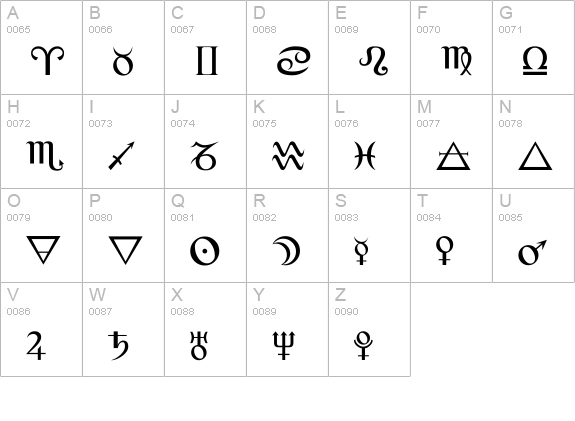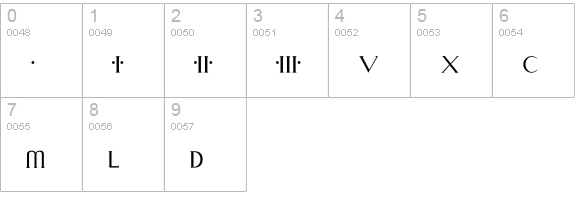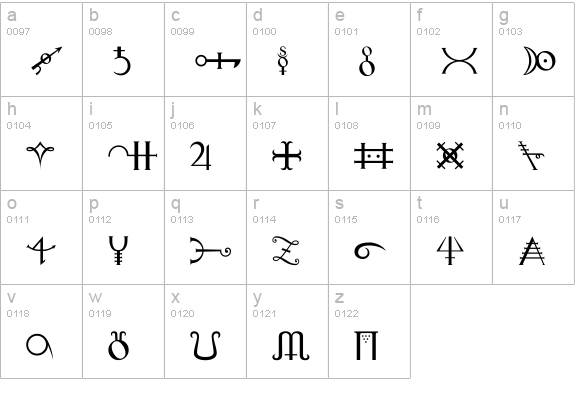
Alchemy Font Details
The Alchemy font is a mesmerizing display typeface that exudes an air of mystique and enchantment. Its intricate design and intricate details make it perfect for adding a touch of magic to any project. With its elegant curves and ornate flourishes, this font captures the essence of alchemical secrets and ancient wisdom. Best of all, the Alchemy font is available for free download at FontsMarket.com. Whether you're looking to create spellbinding designs or simply want to add a touch of sophistication to your work, this font is sure to captivate and inspire. Embrace the power of the Alchemy font and unleash your creativity today.